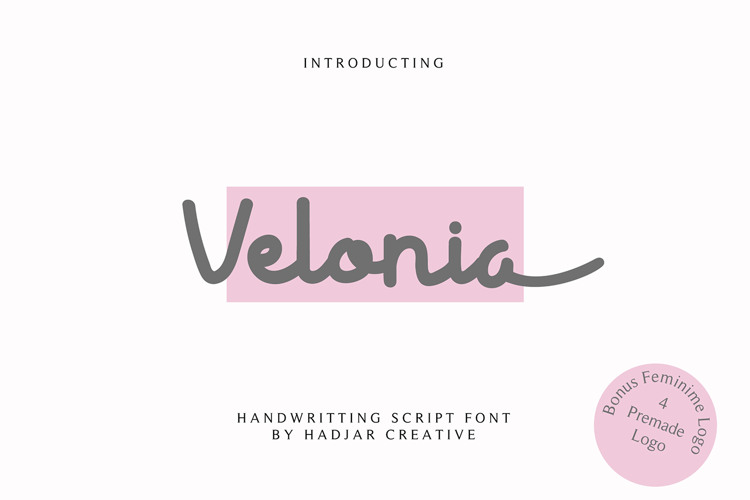
Velonia Font
About Velonia Font
This beautiful script. Bold calligraphy font. Giving off a soft impression.
Velonia font is perfect for use as wedding invites, poster designs, branding, logos, apparel, card, social media. Powerful for feminine logo.
Features:
-Upper and Lowercase
-Numerals & Symbols
-Multi Linguals Support
-Stylistic Alternate
-Ligatures
-Swash